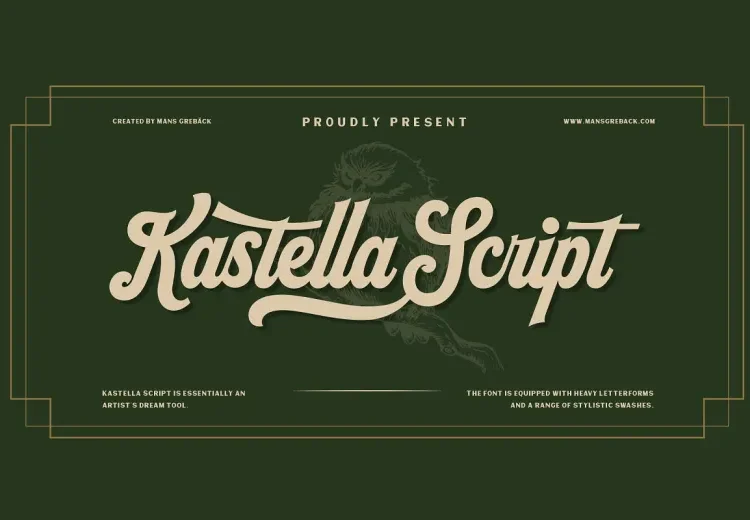
Kastella Script Font
Kastella Script Font is a versatile and artistic typeface designed to elevate your creative projects with its bold, stylish features. It’s more than just a font; it’s a powerful tool for crafting visual narratives that make a strong impact.
Key Features of Kastella Script Font:
• Bold Letterforms: Kastella Script features thick, impactful letterforms that stand out in any design, making your text a focal point of the artwork.
• Stylish Swashes: The font includes elegant swashes that add a contemporary flair to your designs, allowing for creative expression and enhancing visual appeal.
• Versatile Applications: Perfect for branding, editorial layouts, and other design projects, Kastella Script offers flexibility to suit various creative needs.
Ideal Uses for Kastella Script Font:
• Branding Projects: Use Kastella Script to create memorable and stylish brand identities. Its bold letterforms and decorative swashes can help your brand stand out and make a lasting impression.
• Editorial Layouts: Add a touch of elegance to magazines, books, and other editorial materials. Kastella Script brings a sophisticated and modern look to text, enhancing the overall design.
• Artistic Design: Whether for posters, invitations, or other creative works, Kastella Script serves as a finishing touch that brings your artwork to life with its dynamic and visually engaging style.